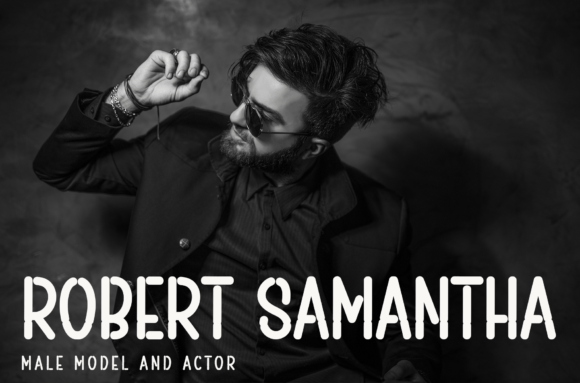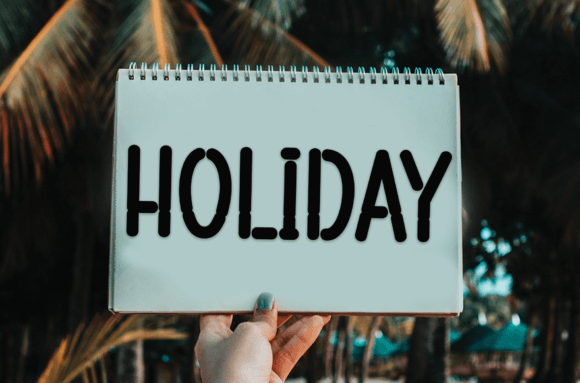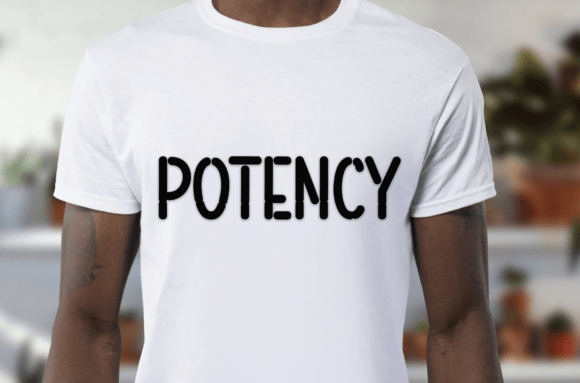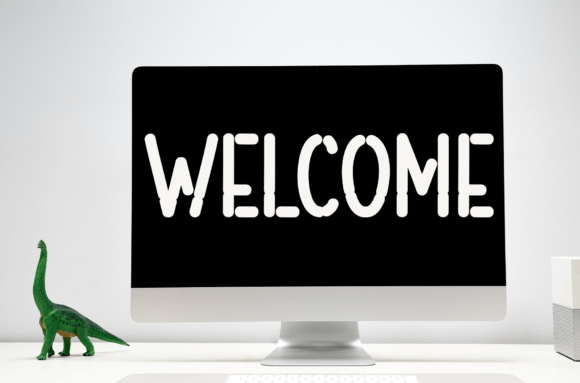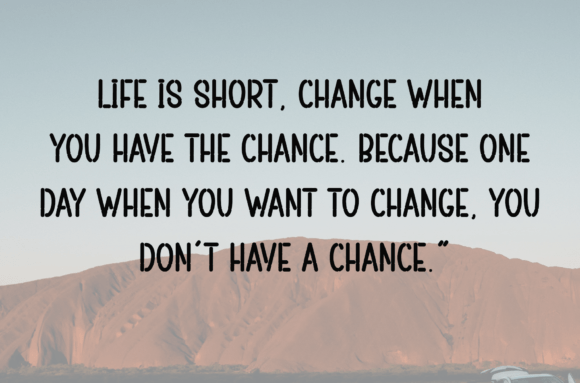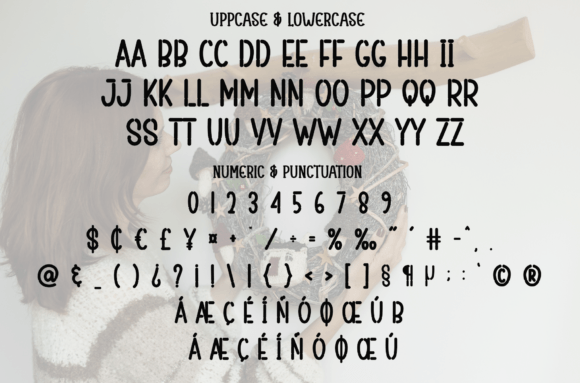
Unleashing the Magic of Handwritten Charm
Have you ever stared at a blank page, feeling stuck and uninspired? For many of us, it’s that moment of creative blockage that sparks the urge to pick up a pen and let our imagination run wild. It’s in those moments that we remember the joy of handwritten notes, the charm of a perfectly crafted letter, and the beauty of a font that truly stands out.
Enter the Cretion Font, a sweet and friendly handwritten display font designed to add a touch of whimsy to any design. Perfect for writing wedding invitations, cards, or any other project that needs a fun and playful vibe, this font is a game-changer for designers looking to elevate their work.
With its fresh and neat aesthetic, the Cretion Font is a valuable addition to any designer’s toolkit, offering a unique way to express personality and style in their designs.
Cretion Font Key Features
- Font Style: A unique, hand-drawn font with a bold and playful feel, perfect for adding a touch of whimsy to designs.
- Unique Characteristics: Features a distinctive, hand-drawn feel with varying line widths and subtle texture, adding a touch of personality to designs.
Cretion Font Review
Overall, I think the Cretion Font has some great qualities, but also some notable limitations. Let’s dive in and explore what it has to offer.
- The Cretion Font has a unique and modern aesthetic that would be perfect for contemporary designs.
- The font is highly legible, even at small font sizes, making it ideal for digital applications.
- The font family includes a wide range of weights and styles, offering a lot of flexibility for designers.
- The font’s unique style may not be to everyone’s taste, and some users may find it too quirky or distracting.
- The font’s width can vary significantly between weights, which may cause alignment issues in certain layouts.
- The font family is not as comprehensive as some other popular fonts, with limited language support and no italics.
Overall, I think the Cretion Font is a solid choice for designers who are looking for a modern, unique font. However, it may not be the best fit for every project or audience. With some careful consideration and planning, the Cretion Font can be a valuable addition to any designer’s toolkit.
Cretion Font Practical Application Guide
To get the most out of the Cretion Font, use it sparingly and in bold, eye-catching ways. Combine it with other fonts and design elements to create a unique and visually appealing look.
The Cretion Font is ideal for use in creative, artistic projects, such as:
- Typography-based art
- Logo design
- Book covers and interior design
Alternatives to Cretion Font